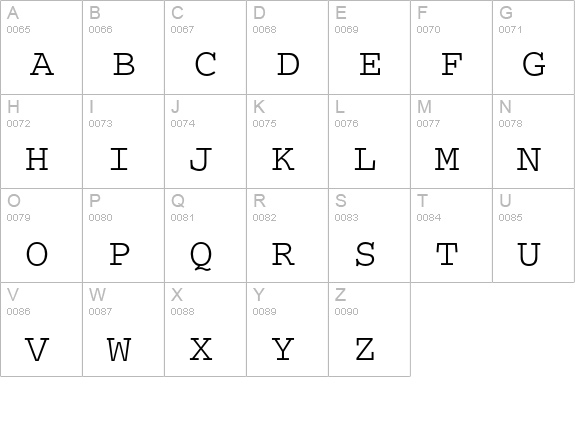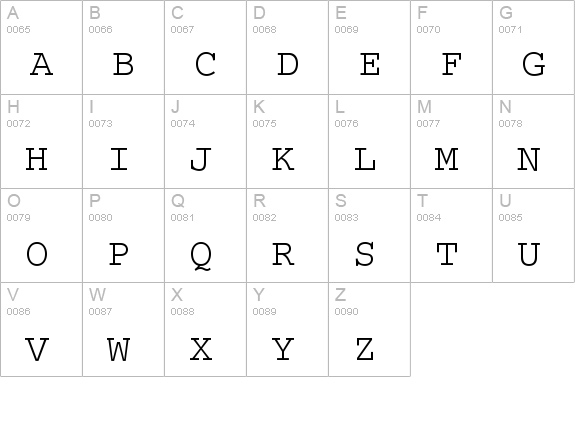
Courier CE Medium Font Details
Courier CE Medium is a balanced, medium-weight variant in the Courier typeface family \xE2\x80\x94 well suited to sub-headlines, navigation, and balanced editorial work.
Courier CE Medium font is a classic and timeless typeface that exudes professionalism and clarity. Its sleek and clean design makes it perfect for various uses, from official documents to creative projects. The medium weight strikes a perfect balance between boldness and readability, making it ideal for both print and digital mediums. One of the best things about Courier CE Medium font is that it is completely free to download at FontsMarket.com. This means you can easily access this high-quality font without any cost, making it a valuable addition to your font collection. Whether you're a designer, writer, or business professional, Courier CE Medium font is a versatile and reliable choice that will enhance the visual appeal of your projects. Download it today and elevate your design work with this exceptional font.